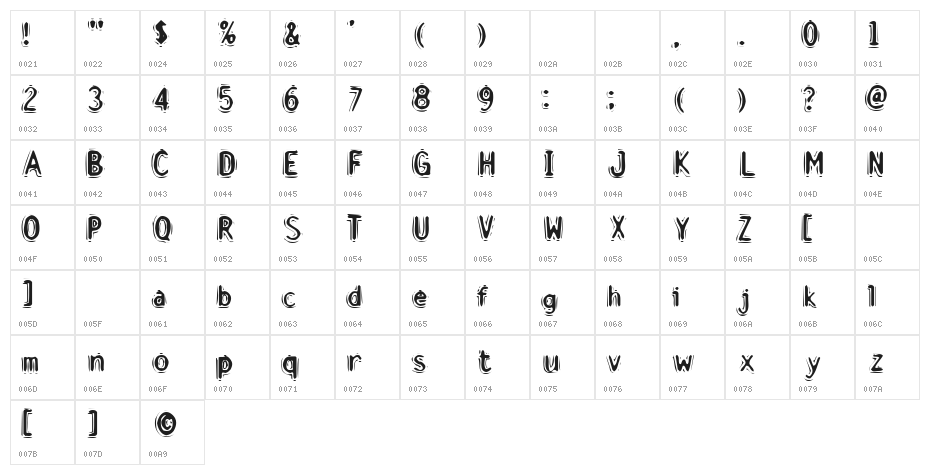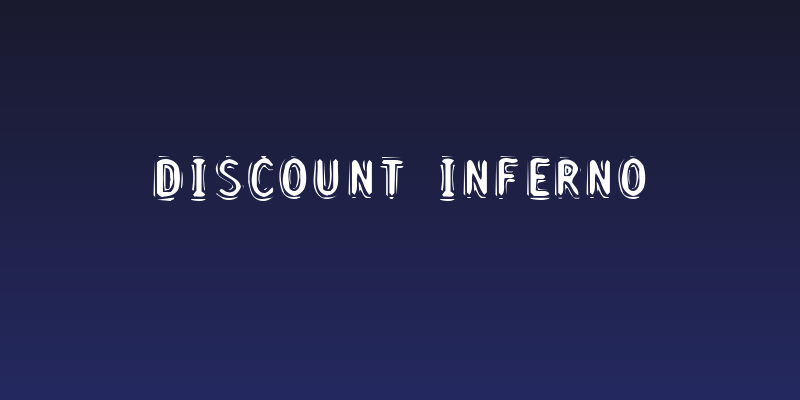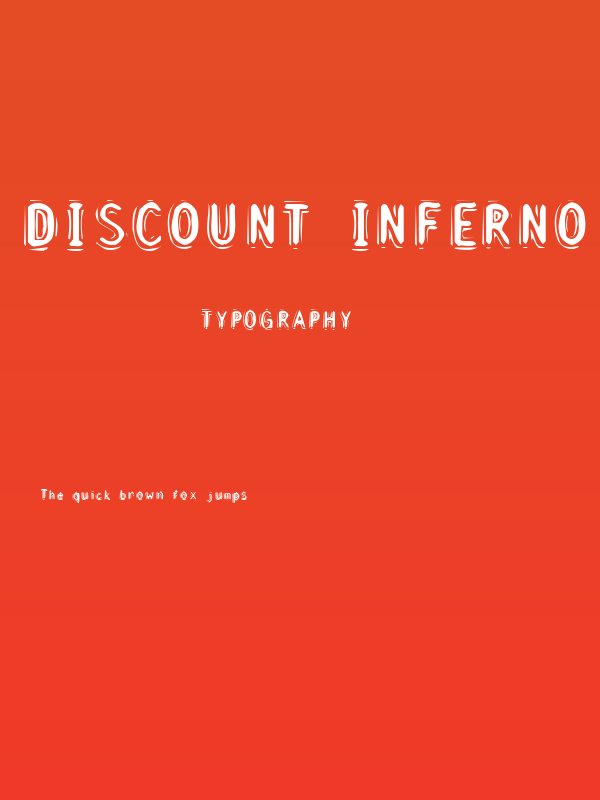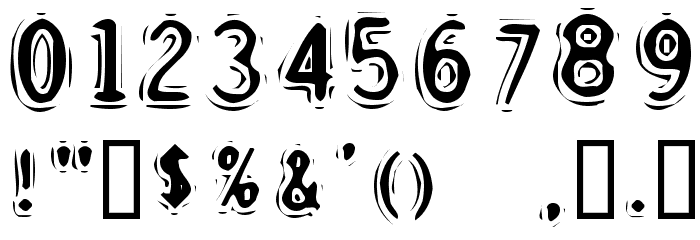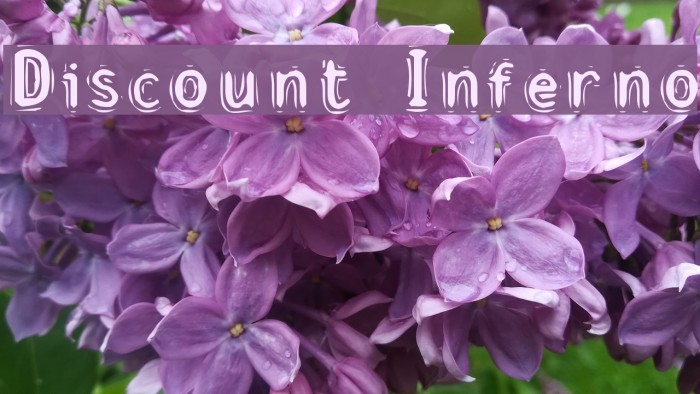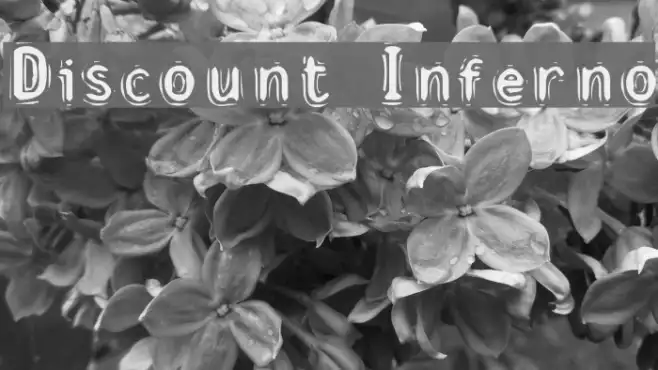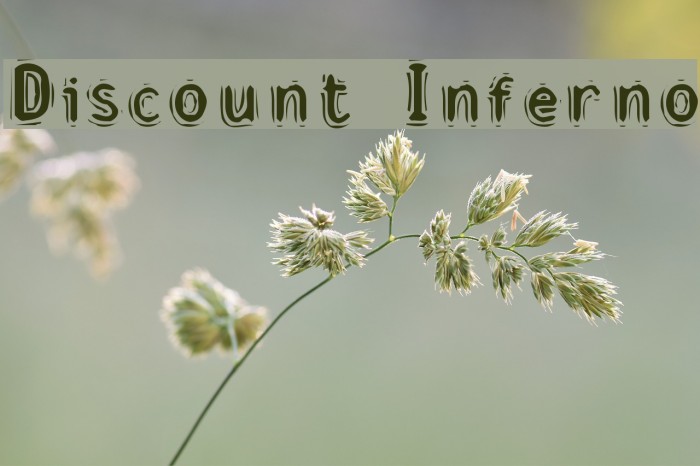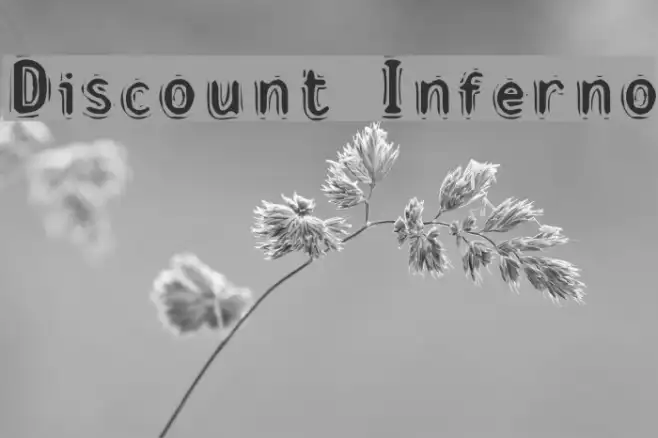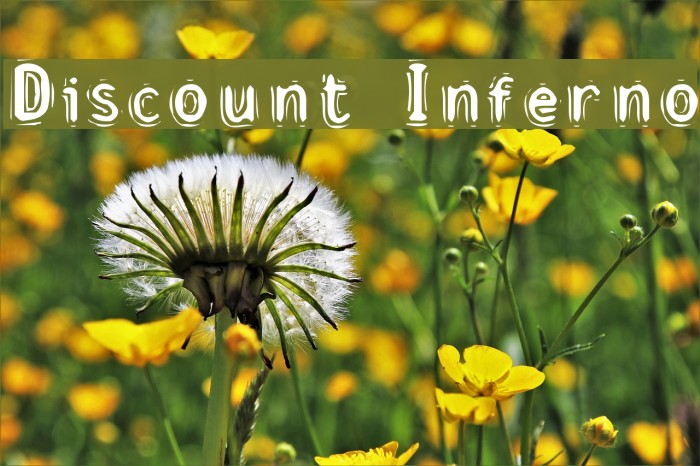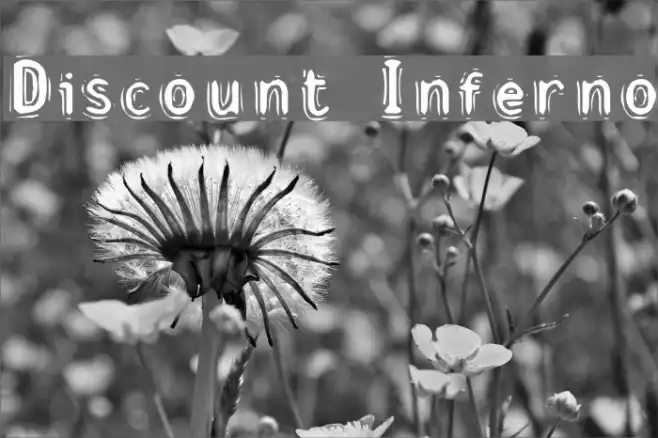
Discount Inferno Font
Discount Inferno Description
This font features a bold, playful design with a unique, wavy outline that gives each character a dynamic and energetic appearance. The letters are slightly irregular, adding a sense of movement and spontaneity. The thick strokes and high contrast between the filled and outlined areas make it highly legible while maintaining a decorative flair. The font includes a full set of uppercase and lowercase letters, numbers, and a variety of special characters, making it versatile for various design needs. Its distinctive style is ideal for projects that require a fun and eye-catching typeface.
| Proposed Projects | Ideal for posters, event flyers, children's book covers, and branding that requires a lively and engaging typeface. |